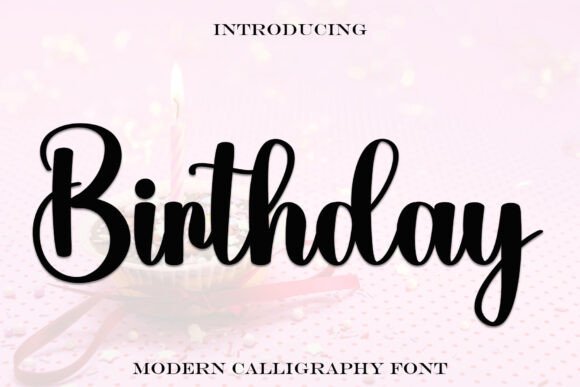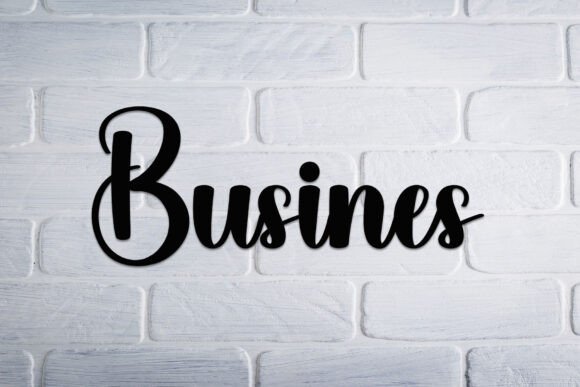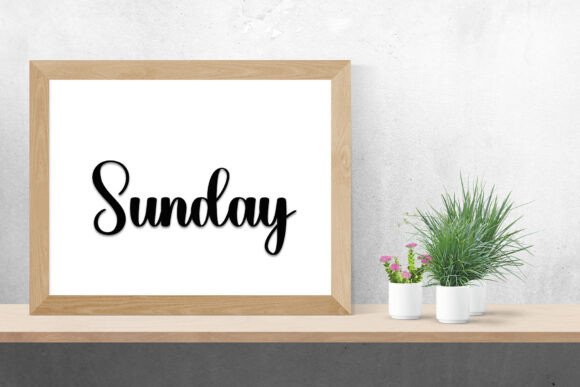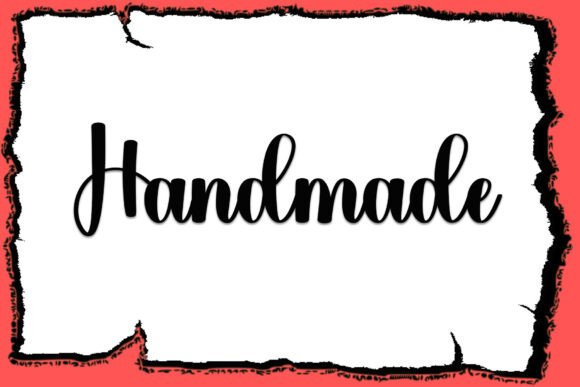
About the Birthday Font
The Birthday Font is here to transform your projects with its distinctive character and style. Birthday is a sweet and cursive handwritten font. This gentle font will look gorgeous on a variety of design ideas. It will add a joyful and romantic touch to each of your projects! Perfectly fit for branding, logo, wedding things, greeting cards, fashion, lookbook, marketing promotion, and any time you want your design to look fancy and elegant but still casual.
Birthday Font Usage Examples
Birthday Font Example